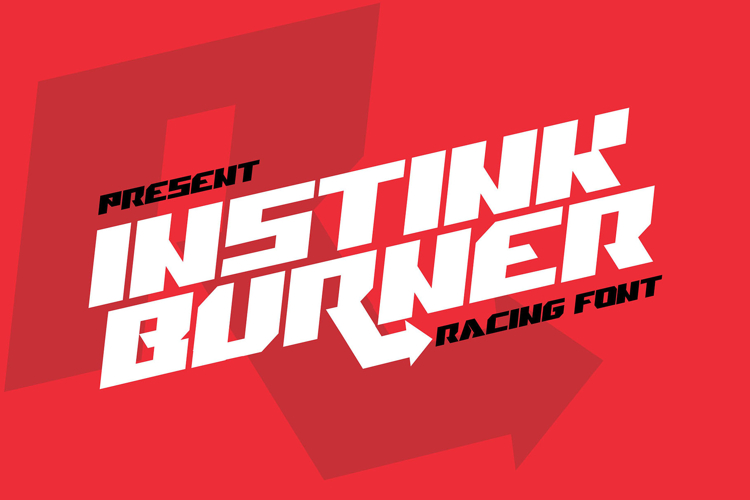
Instink Burner - Powerful Racing Font
Introducing Instink Burner – the Powerful Racing Font that fuels your designs with speed and intensity. Designed for projects that demand a bold and dynamic aesthetic, Instink Burner captures the adrenaline and excitement of the racing world with its strong and impactful style.
� High-Speed Aesthetic: Instink Burner brings the thrill of the racetrack to your designs. Its sleek and aggressive letterforms exude a sense of motion and power, making it perfect for any project that needs a high-energy vibe.
� Bold and Dynamic: With its striking and robust design, Instink Burner commands attention. The font's powerful presence ensures that your text stands out, making it an ideal choice for headlines, logos, and branding that require a bold statement.
� Versatile Racing Style: Whether you're designing for automotive events, sports merchandise, or dynamic advertising campaigns, Instink Burner adapts effortlessly. Its versatile style makes it suitable for a wide range of applications, adding a fierce and competitive edge to your work.
� Eye-Catching Impact: Instink Burner’s sharp and intense look captures the essence of speed and competition. The font's bold and distinctive character ensures your message is conveyed with maximum impact, leaving a lasting impression on your audience.
�️ Perfect for Various Projects: From posters and banners to apparel and digital graphics, Instink Burner excels in any context. Its powerful racing aesthetic enhances your designs, making them resonate with the energy and excitement of high-speed action.
Unleash the power of speed with Instink Burner – the Powerful Racing Font that drives your designs forward. Perfect for adding a bold and dynamic touch to any project, Instink Burner is your go-to font for creating high-energy and impactful text that truly stands out.